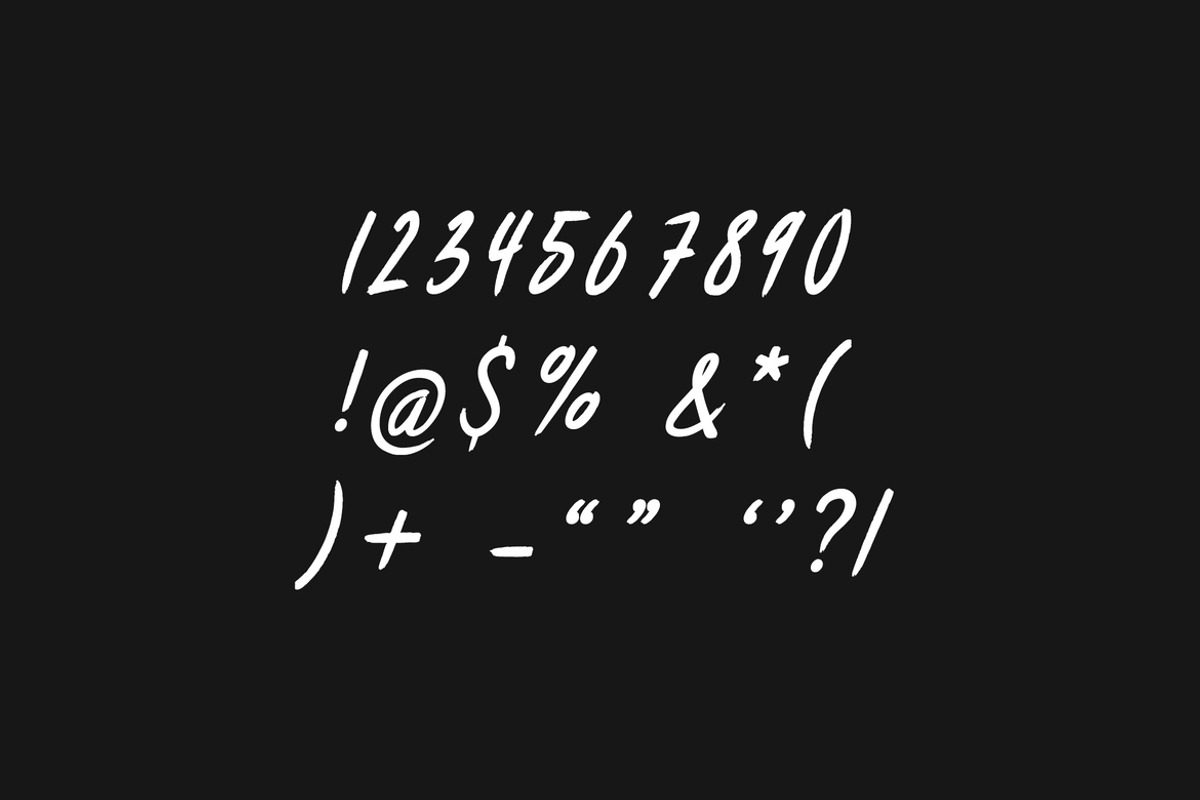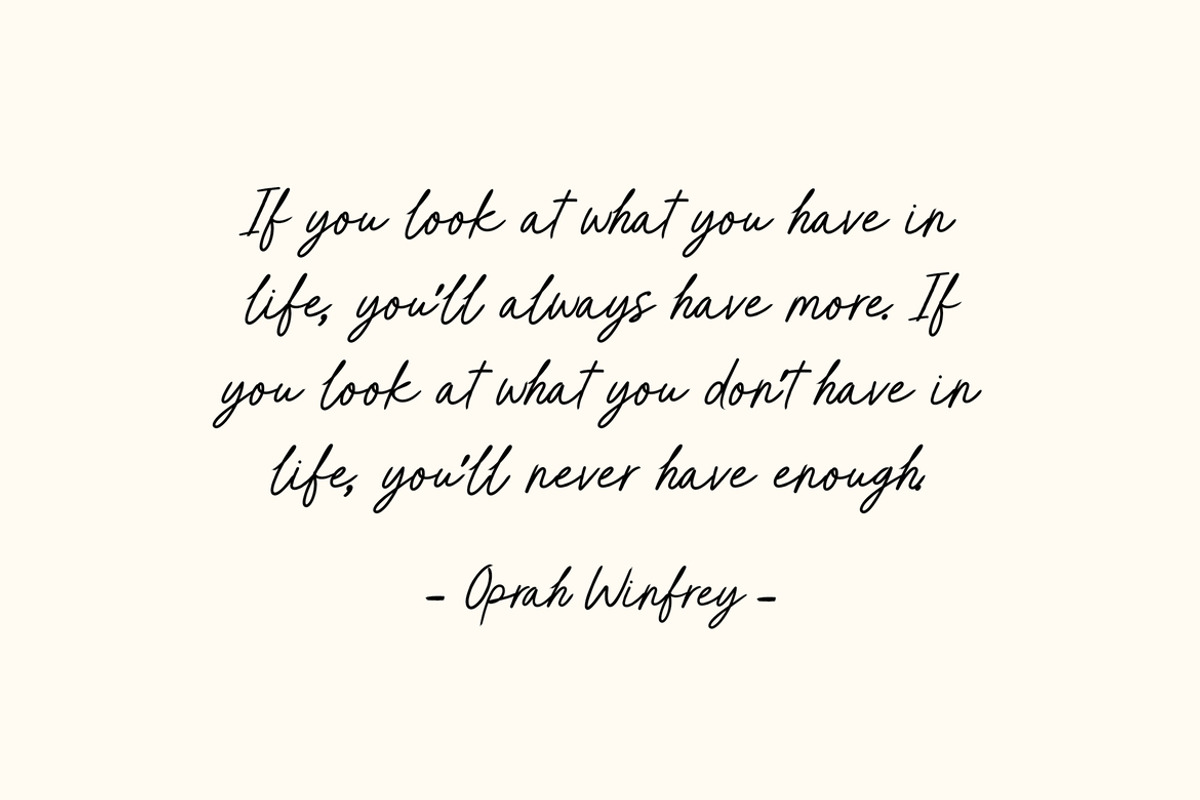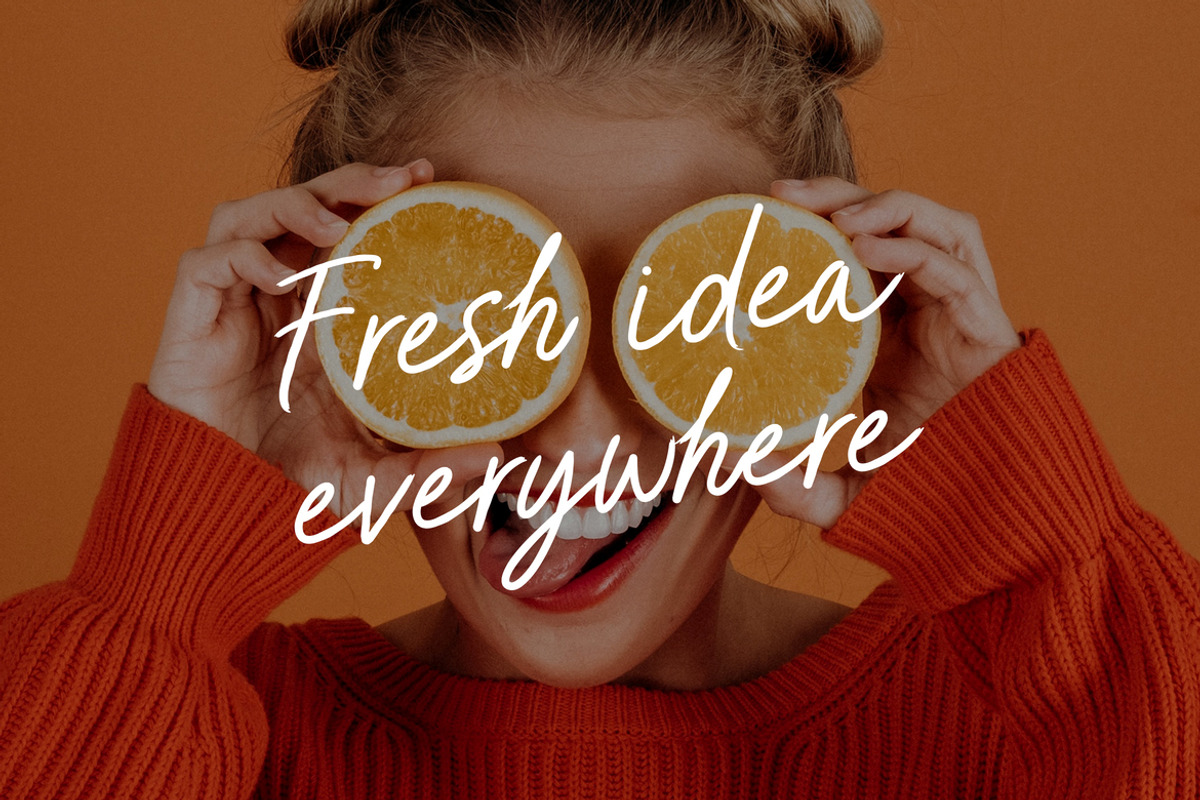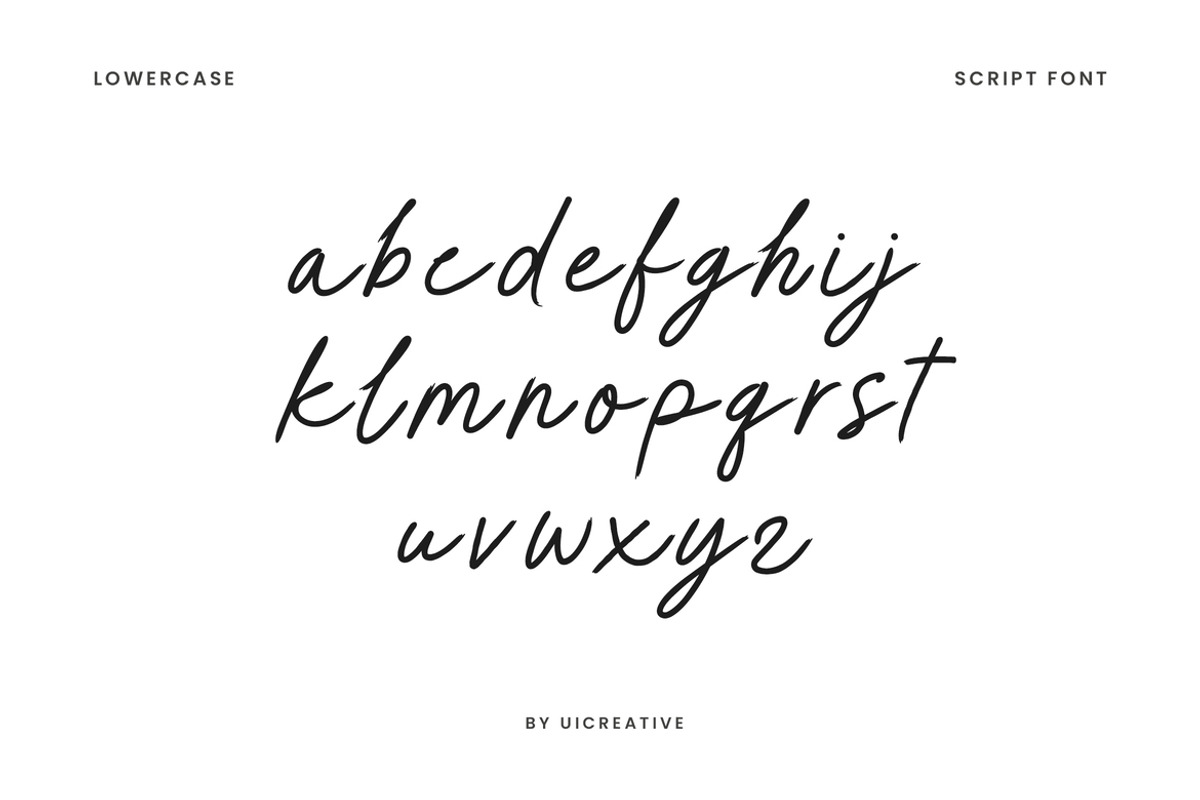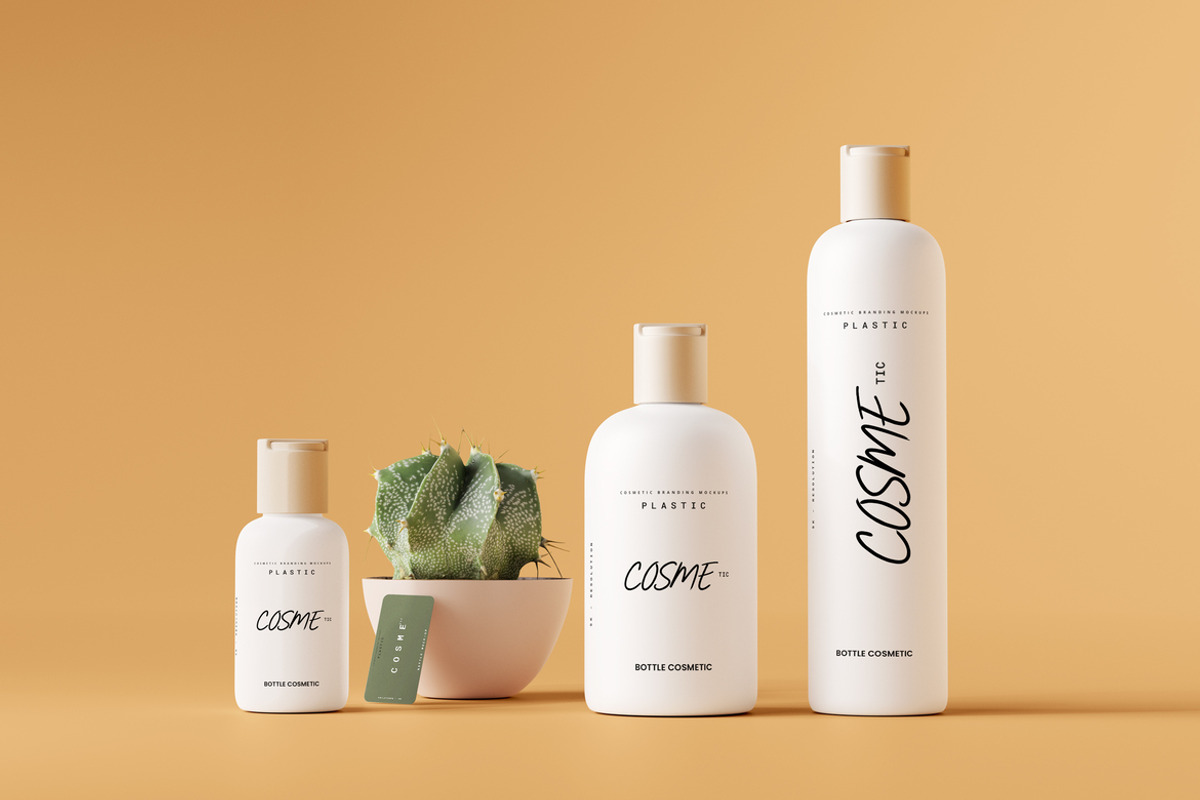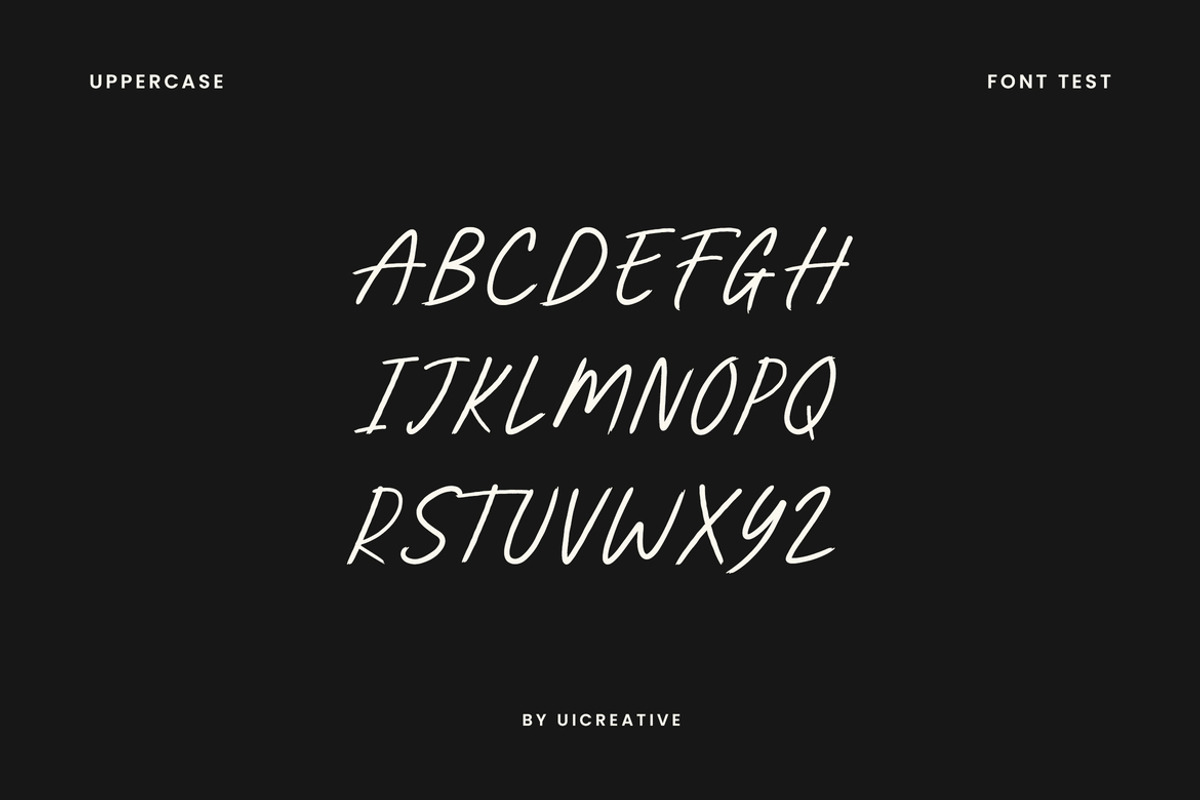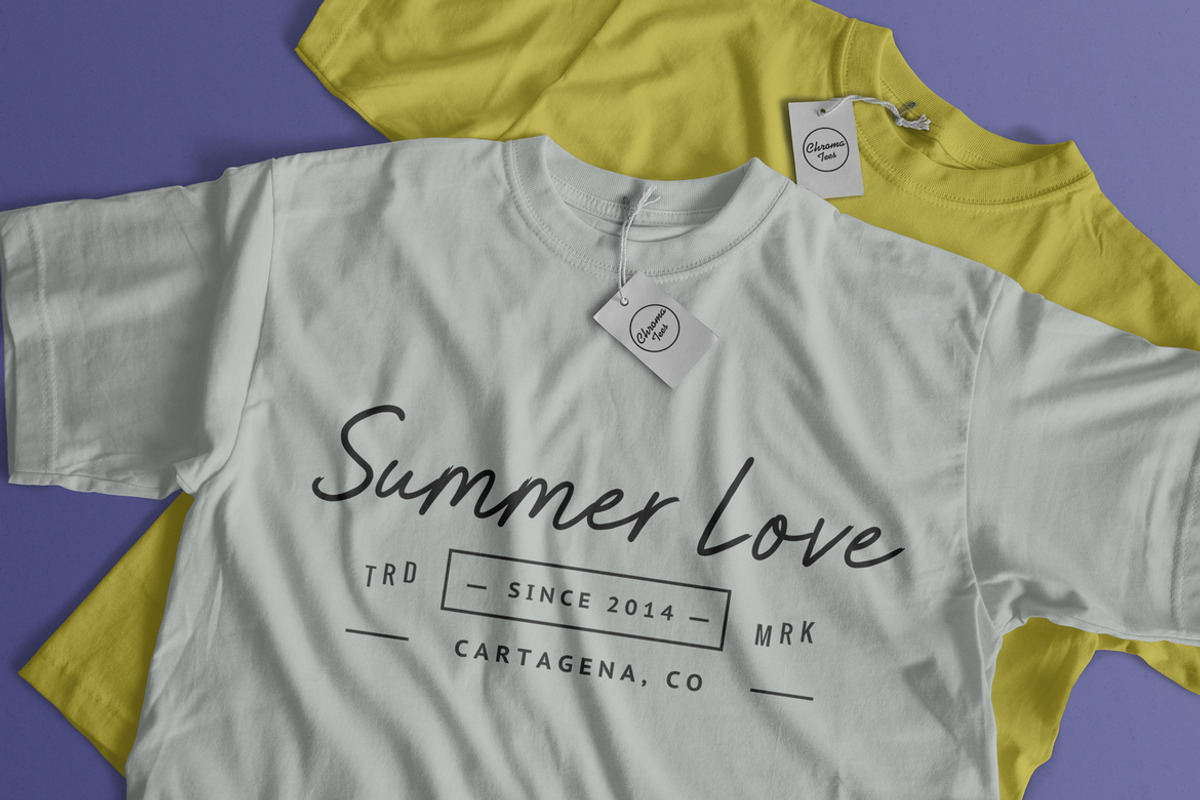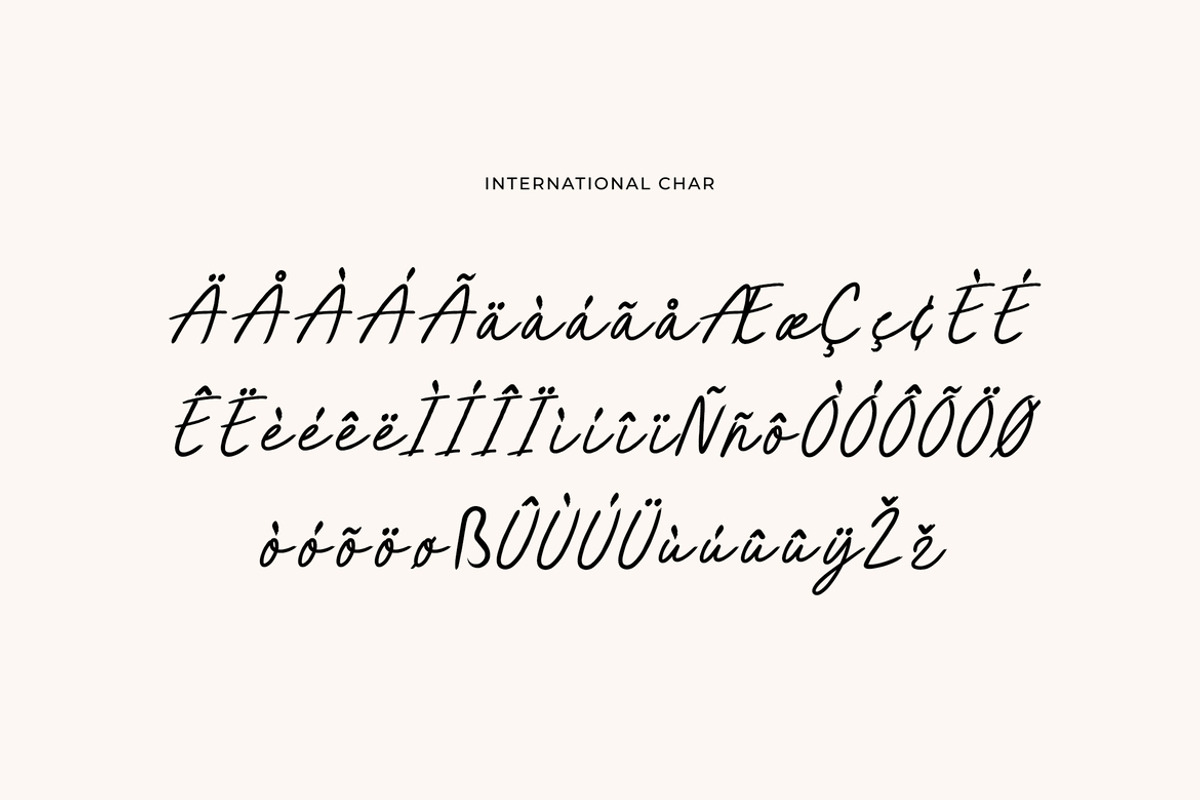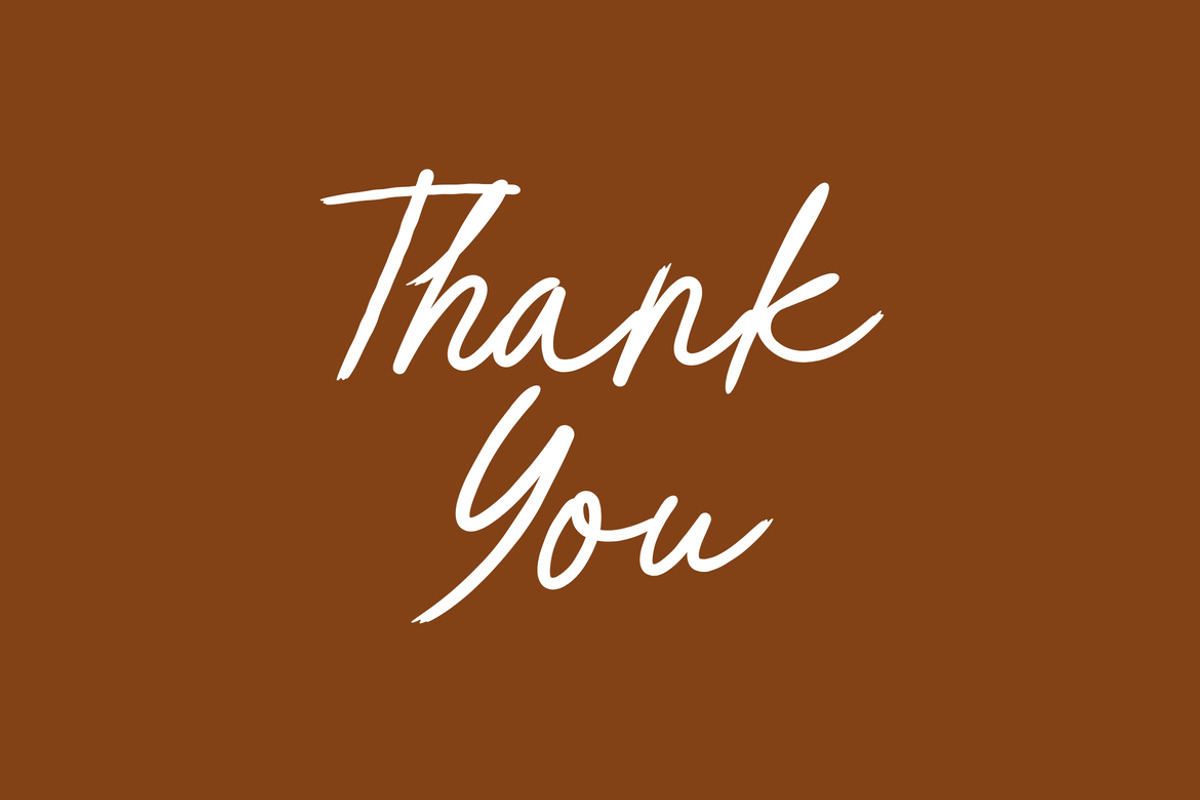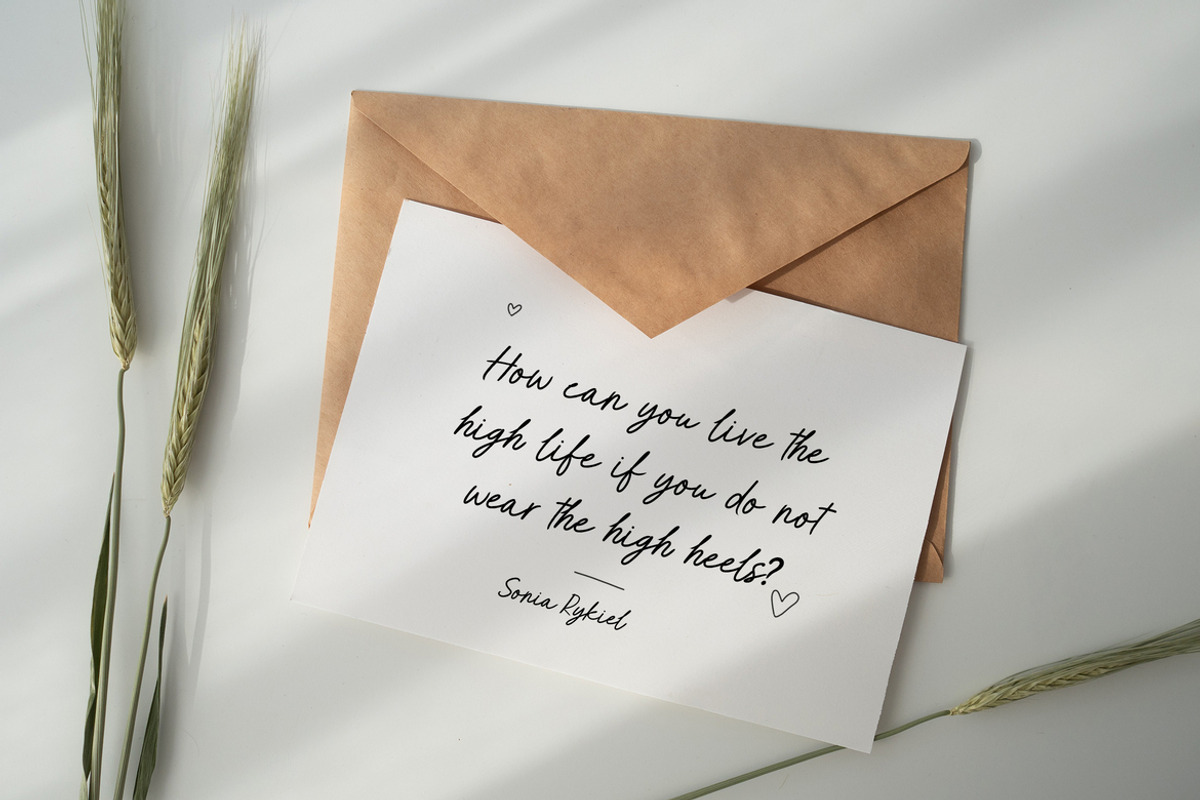
HARDCOVER Special Handwritten Font
Introducing our new product the name is HARDCOVER Special Handwritten Font. Modern Serif font that feels beautiful classy, elegant, and modern. This font is ideally suited for a wide variety of projects, such as signature, stationery, logo, wedding, typography quotes, magazine or book covers, website headers, clothing, branding, packaging design, and more. Also, fashion-related branding or editorial design displays both masculine and feminine qualities.